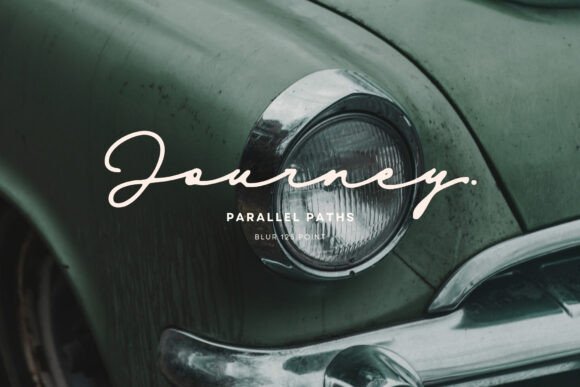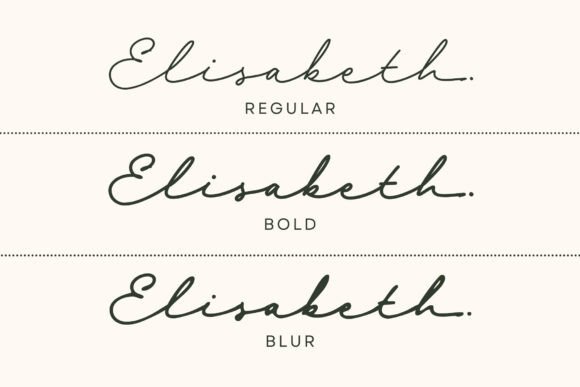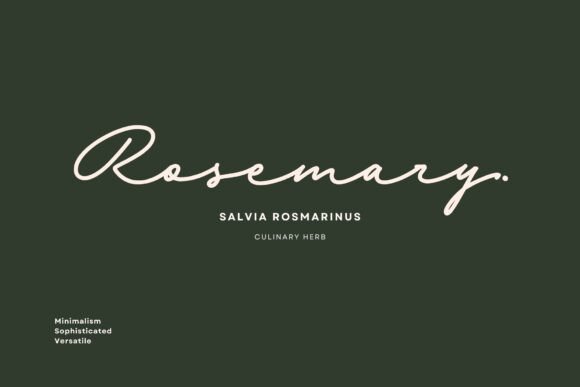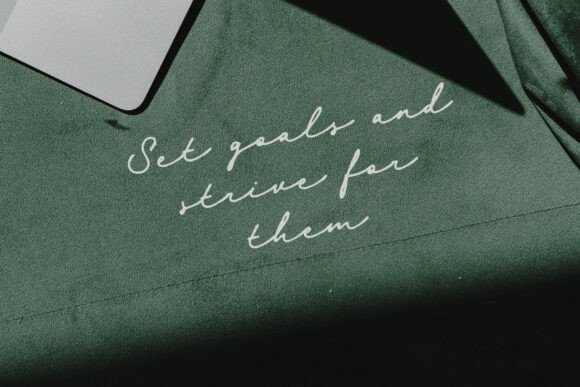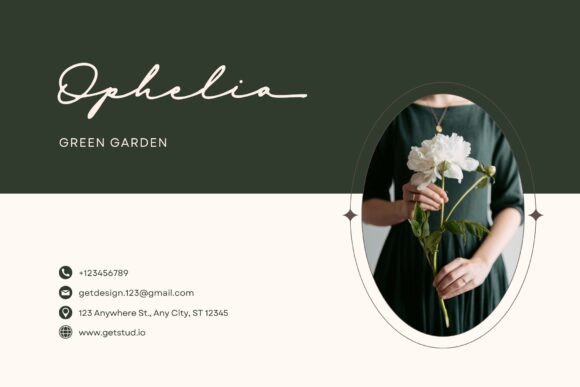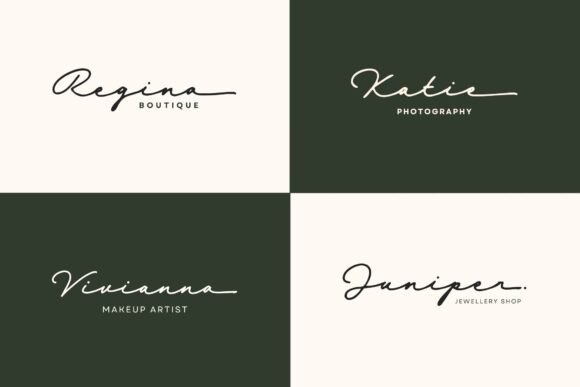
Introduction to Sabiyan Font
You know that moment when you’re brainstorming a new creative project and you can’t quite find the right font to bring your vision to life? The words are flowing, but the design is stuck in limbo until you stumble upon that one perfect font. For designers, this moment is a game-changer, and we’re excited to introduce you to a game-changing font – the Sabiyan Font.
This sleek monoline signature script font is designed to elevate your creative projects with its three versatile styles: Regular, Bold, and Blur. Whether you’re crafting a minimalist logo or adding a stylish flair to your layouts, Sabiyan Font delivers a timeless aesthetic that’s sure to impress. With its high-quality design and transparent background, this font is a valuable addition to any designer’s toolkit, and we’re making it available for free download.
As a go-to design resource, Sabiyan Font offers endless possibilities for creative expression. From chic brand identities to striking headlines, this font adapts seamlessly to a range of design needs, making it a must-have for any designer looking to take their projects to the next level.
Key Features of Sabiyan Font
- The Sabiyan Font is a high-quality, free design resource ideal for creative projects.
- Features a transparent background, making it easy to customize and integrate with different design elements.
- The Sabiyan Font boasts a high resolution, ensuring crisp and clear typography in both print and digital applications.
- Its unique, elegant design makes it an excellent choice for a variety of creative projects, from branding and advertising to publishing and more.
Honest Review: Sabiyan Font
I recently stumbled upon the Sabiyan Font and I must say, it’s been a game-changer for my creative projects. This font is a fantastic design resource that’s both elegant and versatile.
One of the standout features of the Sabiyan Font is its seamless compatibility with transparent backgrounds. This makes it an ideal choice for designers who need to create high-quality visuals with a clear and unobtrusive background. ✨
- High-quality design with a beautiful aesthetic
- Seamless compatibility with transparent backgrounds
However, I did notice a few limitations with the Sabiyan Font. The font family is relatively small, and I found myself wishing for more variations to choose from. ⚠️ Additionally, some users may find the font to be a bit too ornate for certain design projects.
Overall, I’m thoroughly impressed with the Sabiyan Font. Its high-quality design and versatility make it an excellent addition to any designer’s toolkit. While it may have some limitations, I believe the benefits far outweigh the drawbacks.
Sabiyan Font is a versatile design resource that can be used in a variety of creative projects. Some common use cases include creating social media graphics, designing business cards, and developing marketing materials. With its transparent background and high-quality design, Sabiyan Font is a great choice for designers and non-designers alike.
To get the most out of Sabiyan Font, be sure to experiment with different font sizes, colors, and styles. You can also combine Sabiyan Font with other design elements to create unique and eye-catching graphics. With a little creativity, Sabiyan Font can help take your design project to the next level.